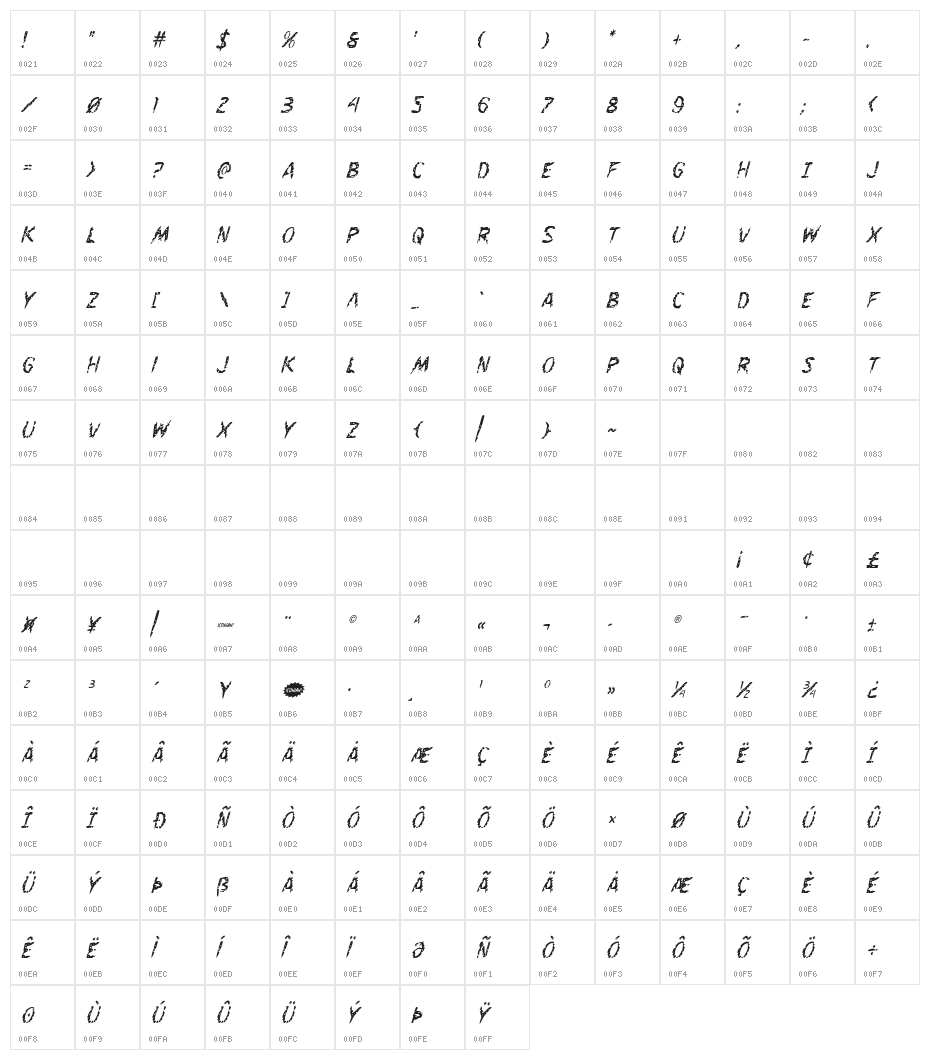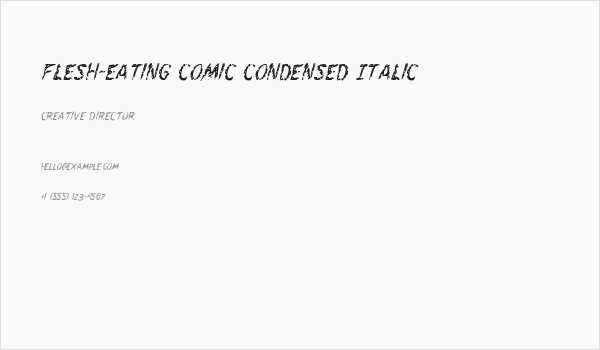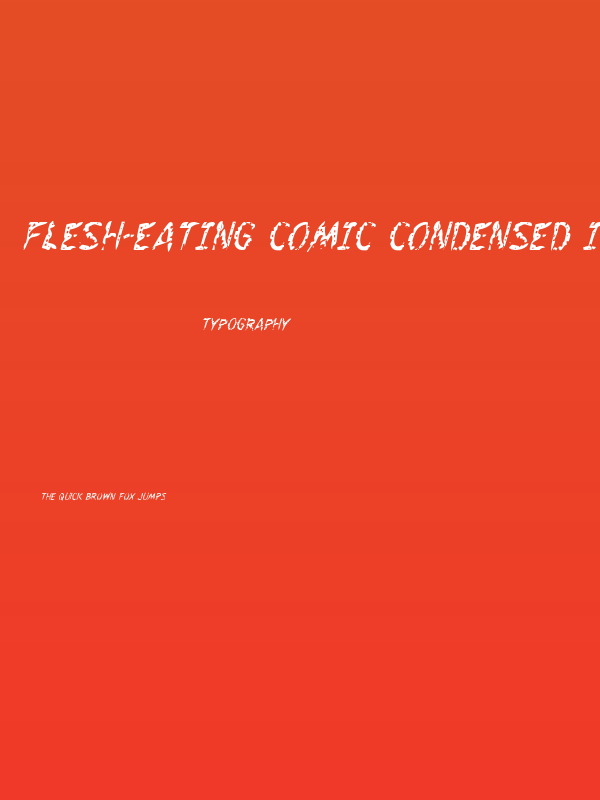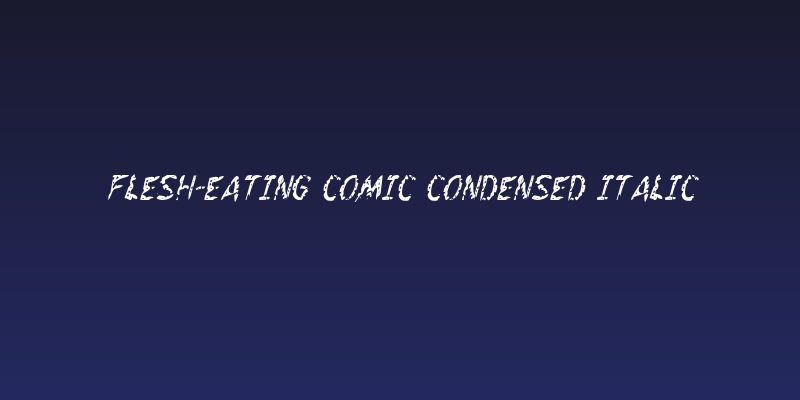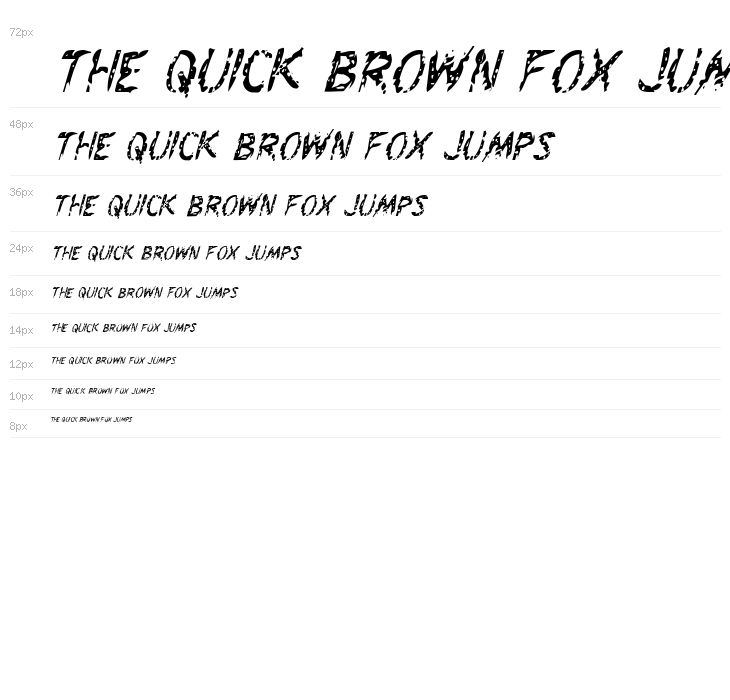
Flesh-Eating Comic Condensed Italic Font
Flesh-Eating Comic Condensed Italic Description
This font features a distressed, grungy style with a condensed and italicized form. The letters appear as if they have been eroded or eaten away, giving them a unique, edgy look. The irregular edges and rough texture contribute to a sense of chaos and movement. Each character maintains a consistent height, but the varying thickness and jagged edges create a dynamic visual effect. This font is particularly eye-catching and would stand out in any design that requires a bold, unconventional aesthetic. The numbers and special characters follow the same distressed style, ensuring a cohesive look across all text elements.
| Proposed Projects | Ideal for horror-themed posters, edgy album covers, or any design requiring a bold, unconventional look. |